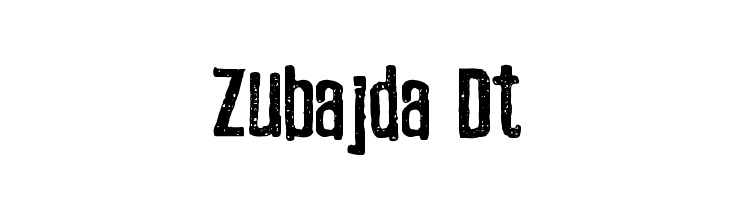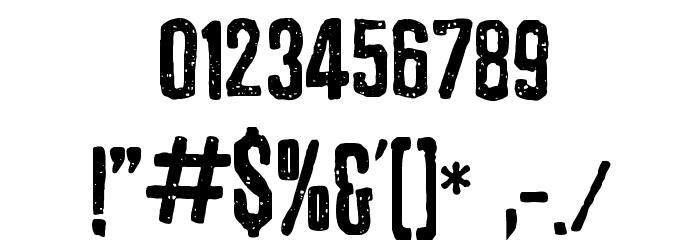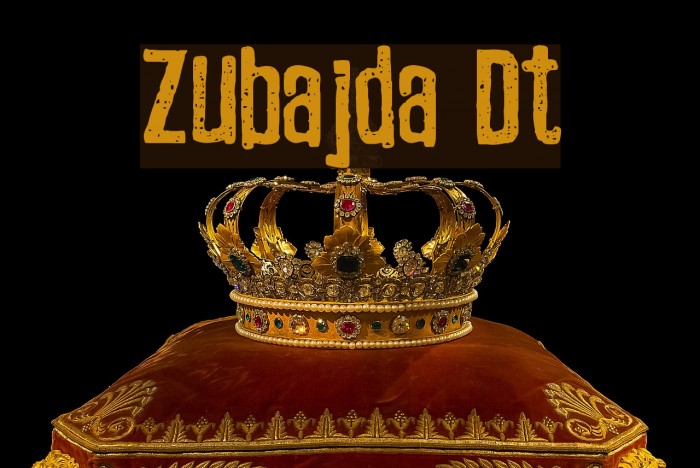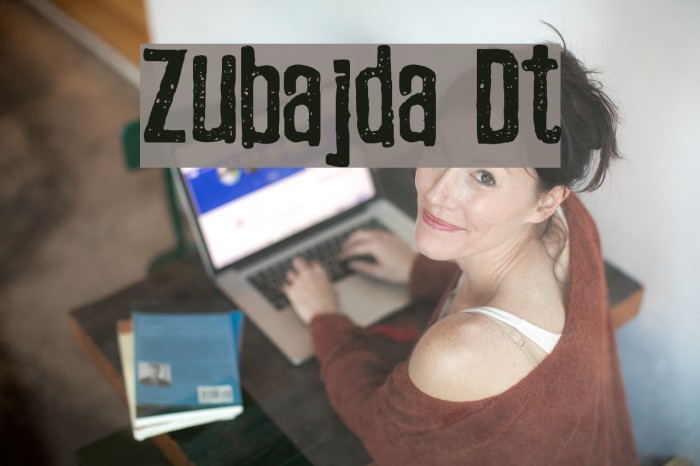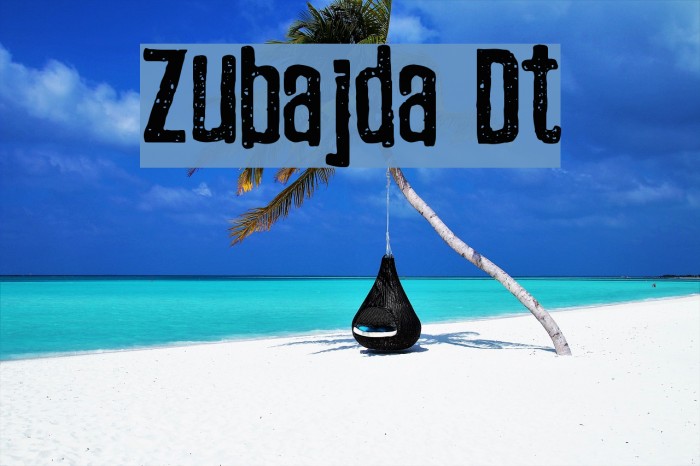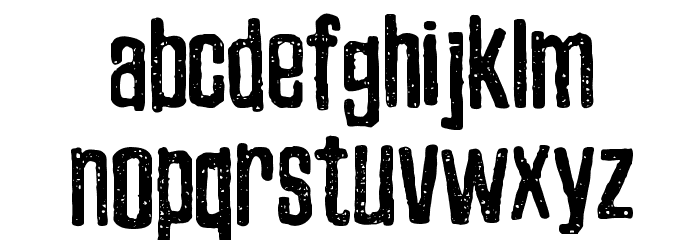
Zubajda Dt Font
Zubajda Dt Description
This font features a rugged, distressed appearance, giving it a vintage and worn-out look. The uppercase and lowercase letters are bold and slightly condensed, with a textured finish that suggests a hand-crafted or stamped style. The numerals and special characters maintain this distressed aesthetic, making the font suitable for designs that require a rustic or industrial feel. The characters are evenly spaced, ensuring readability while maintaining the unique style. This font's distinctive appearance makes it ideal for projects that aim to convey a sense of authenticity and character.
A bold, distressed font with a vintage, hand-crafted appearance from Distorted Eroded fonts.
- Proposed Projects: Ideal for branding, posters, packaging, and any design requiring a rustic or vintage feel.
- Overall Style: Vintage